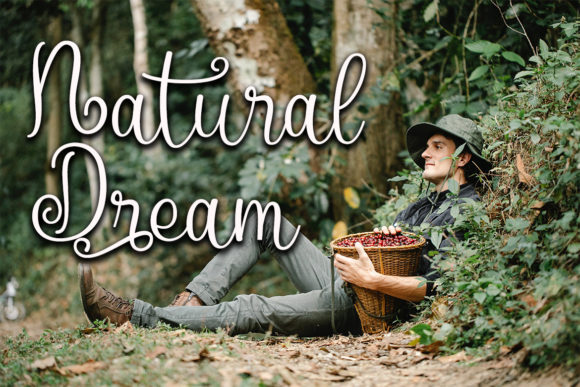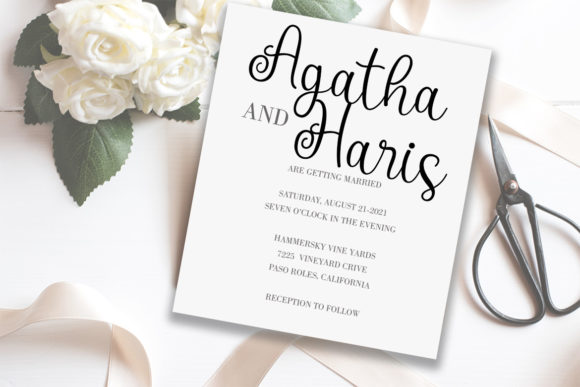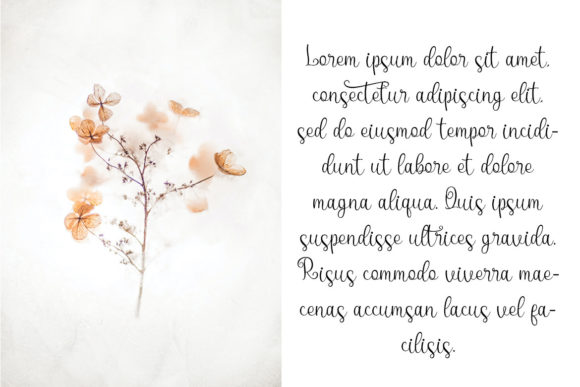
Aeroting Font: Elevate Your Designs with Elegance and Sophistication
In the world of typography, a font can make or break the visual appeal of a design. For those seeking a script font that embodies elegance and class, look no further than Aeroting. This lovely and delicate font is specifically crafted for designers and crafters who desire a beautiful and refreshing look for their projects. In this article, we’ll dive into the world of Aeroting Font, exploring its features, uses, and benefits.
The Beauty of Aeroting Font
Aeroting Font is a stunning script font that boasts a unique and captivating style. Its delicate strokes and elegant curves make it perfect for designs that require a touch of sophistication. Whether you’re working on a branding project, wedding invitation, or social media graphic, Aeroting Font is sure to impress. Its lovely and refined appearance will add a level of class to your designs, setting them apart from the rest.
Features of Aeroting Font
Aeroting Font comes with a range of features that make it an excellent choice for designers and crafters. Some of its notable features include:
- Elegant and Delicate Design: Aeroting Font’s unique design makes it perfect for projects that require a touch of elegance and sophistication.
- Script Font Style: As a script font, Aeroting Font is ideal for designs that require a flowing and connected look.
- High-Quality and Readable: Aeroting Font is designed to be highly readable, making it suitable for both digital and print projects.
- Multilingual Support: Aeroting Font supports multiple languages, making it a great choice for designers working on international projects.
Uses of Aeroting Font
Aeroting Font is a versatile font that can be used in a variety of design projects. Some of its popular uses include:
- Branding and Logo Design: Aeroting Font’s elegant design makes it perfect for branding and logo design projects.
- Wedding and Event Invitations: Aeroting Font’s delicate and refined appearance makes it ideal for wedding and event invitations.
- Social Media Graphics: Aeroting Font can add a touch of sophistication to social media graphics, making them stand out from the crowd.
- Packaging Design: Aeroting Font can be used in packaging design to add a level of elegance and class to product labels and packaging.
Benefits of Using Aeroting Font
Using Aeroting Font in your designs comes with a range of benefits. Some of the advantages of using Aeroting Font include:
- Unique and Eye-Catching Designs: Aeroting Font’s elegant design will help your projects stand out from the crowd.
- Time-Saving: Aeroting Font’s high-quality design saves you time and effort, allowing you to focus on other aspects of your project.
- Professional Look and Feel: Aeroting Font’s sophisticated design gives your projects a professional look and feel, making them more engaging and effective.
In conclusion, Aeroting Font is a beautiful and elegant script font that can elevate your designs to new heights. Its delicate strokes, elegant curves, and refined appearance make it perfect for projects that require a touch of sophistication. With its range of features, uses, and benefits, Aeroting Font is an excellent choice for designers and crafters seeking to add a level of class and elegance to their designs.